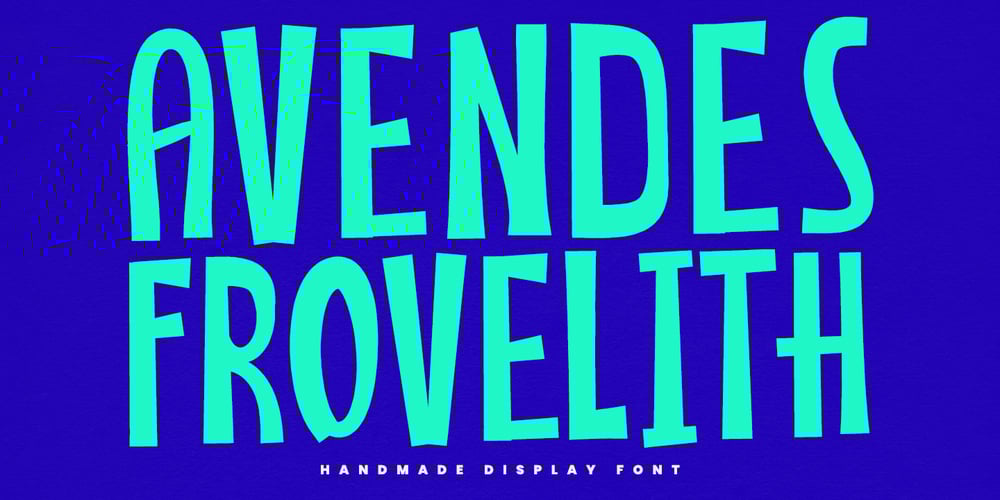
MC Avendes Frovelith
MC Avendes Frovelith font
MC Avendes Frovelith Font Family was designed by Gilang Maulana and published by Maulana Creative. MC Avendes Frovelith contains 1 styles and family package options. Avendes Frovelith is a decorative display font. With Bold Sharp stroke, Upright and fun character with a bit of ligature and alternate. To give you an extra creative work. Avendes Frovelith font support multilingual more than 100+ language. This font is good for logo design, Social media, Movie Titles, Books Titles, a short text even a long text letter and good for your secondary text font with Script. Make a stunning work with Avendes Frovelith font.